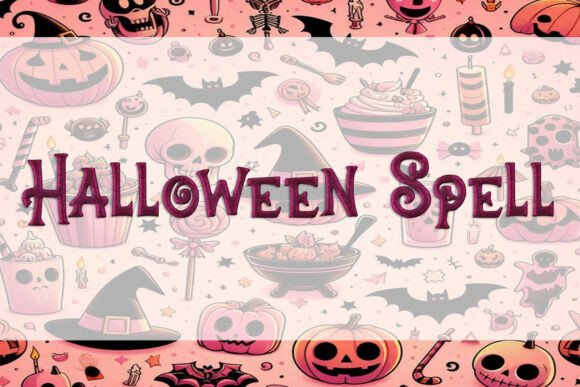
Unleash the Magic with Halloween Spell Font: A Whimsically Spooky Typeface
Are you a designer or crafter looking for a font that adds a touch of magic to your work? Look no further than the Halloween Spell Font. This whimsically spooky typeface is perfect for those who love a dash of whimsy and a touch of the supernatural. In this article, we’ll dive into the world of Halloween Spell Font and explore its features, uses, and benefits.
A Font that Casts a Creative Charm
Halloween Spell Font is a unique and versatile typeface that lives up to its name. Its quirky curves and playful edges bring a handcrafted, enchanting feel to any design it touches. Whether you’re working on T-shirts, stickers, branding, magazines, or greeting cards, this font adds a magical twist that sets your work apart. Its one-of-a-kind personality captures attention and makes your designs stand out from the crowd.
Perfect for Cricut Projects and SVG Files
Halloween Spell Font shines in Cricut projects and SVG files, making it a perfect choice for crafters and designers who love working with cutting machines. The font’s playful edges and curves cut beautifully, resulting in intricate and detailed designs that are sure to impress. Whether you’re creating custom vinyl decals, iron-on designs, or paper crafts, Halloween Spell Font brings a touch of magic to your work.
Versatile and Easy to Use
One of the best things about Halloween Spell Font is its versatility. It’s easy to use and pairs well with a variety of design styles, from spooky and supernatural to playful and whimsical. The font is also highly legible, making it perfect for use in a range of applications, from social media graphics to posters and flyers.
So, what are the benefits of using Halloween Spell Font in your designs? Here are just a few:
- Adds a touch of magic: Halloween Spell Font brings a whimsically spooky touch to your designs, making them stand out from the crowd.
- Versatile: The font is perfect for use in a range of applications, from T-shirts and stickers to branding and magazines.
- Easy to use: Halloween Spell Font is highly legible and easy to use, making it perfect for designers and crafters of all skill levels.
- Perfect for Cricut projects: The font’s playful edges and curves cut beautifully, making it a perfect choice for Cricut projects and SVG files.
Tips for Using Halloween Spell Font
Here are a few tips for using Halloween Spell Font in your designs:
- Experiment with colors: Halloween Spell Font looks great in a range of colors, from bright and bold to muted and pastel.
- Pair with other fonts: The font pairs well with a variety of other fonts, so don’t be afraid to experiment with different combinations.
- Use in combination with graphics: Halloween Spell Font looks great in combination with graphics and illustrations, making it perfect for use in social media graphics and posters.
In conclusion, Halloween Spell Font is a whimsically spooky typeface that’s perfect for designers and crafters who love a dash of whimsy and a touch of the supernatural. Its quirky curves and playful edges bring a handcrafted, enchanting feel to any design it touches. With its versatility, ease of use, and perfect pairing with Cricut projects and SVG files, Halloween Spell Font is a must-have for anyone looking to add a touch of magic to their work.